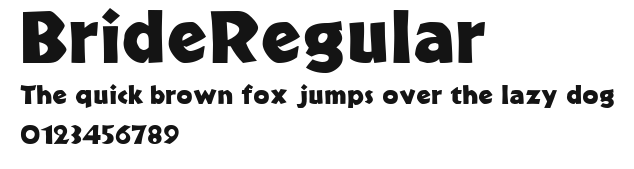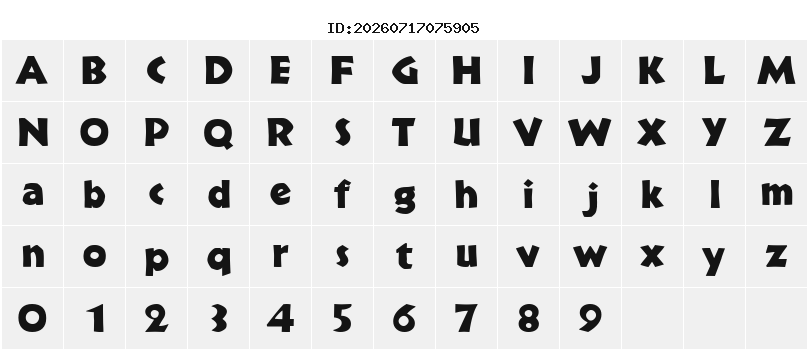
• Copyright: Bride [of the Monster] computer font v2.0 ©2002 Harold Lohner • HLohner@aol.com • www.haroldsfonts.com Lowercase letters are designed to work with Rudolf Koch's classic Neuland font.
About BrideRegular.ttf
BrideRegular.ttf is a modern, elegant sans-serif font designed for ultimate readability and visual harmony. Perfect for branding, headlines, web design, and print materials.